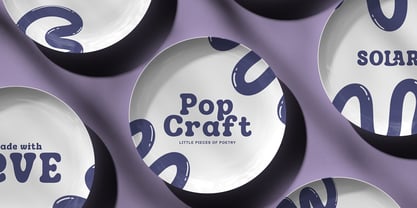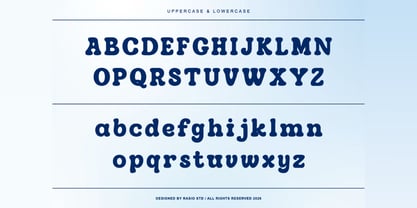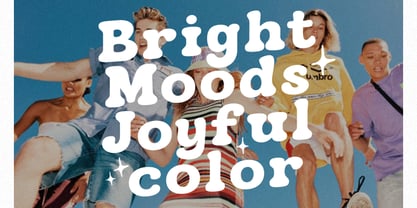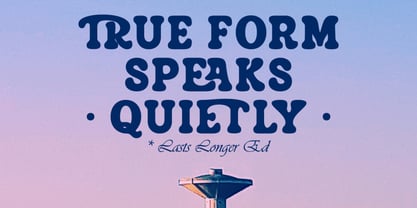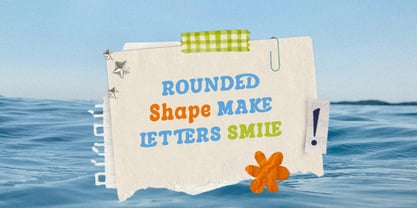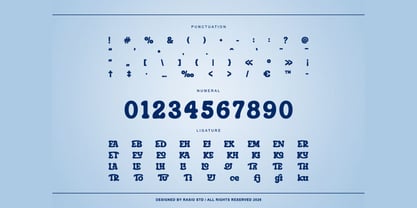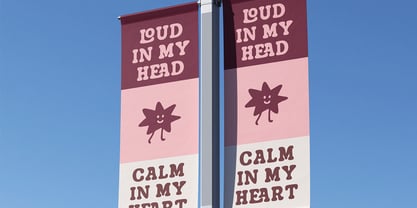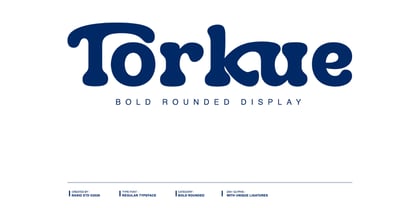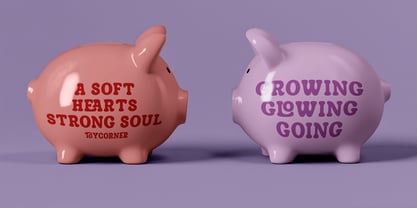
Torkue
La familia tipográfica Torkue fue diseñada por Fajar Indra y publicada por Rasio Studio. Torkue contiene 1 estilos. Más información sobre esta familia
Torkue is a bold, rounded display typeface with a cheerful and expressive personality. Featuring soft curves, playful ligatures, and a chunky silhouette, Torkue is perfect for attention-grabbing headlines, creative branding, retro aesthetics, and youthful messaging. Torkue is perfect for designers looking to infuse fun and friendliness into their projects. Its round, thick letterforms and unique ligatures are ideal for lifestyle branding, youth-focused marketing, album covers, children’s products, posters, social media, and merchandise.